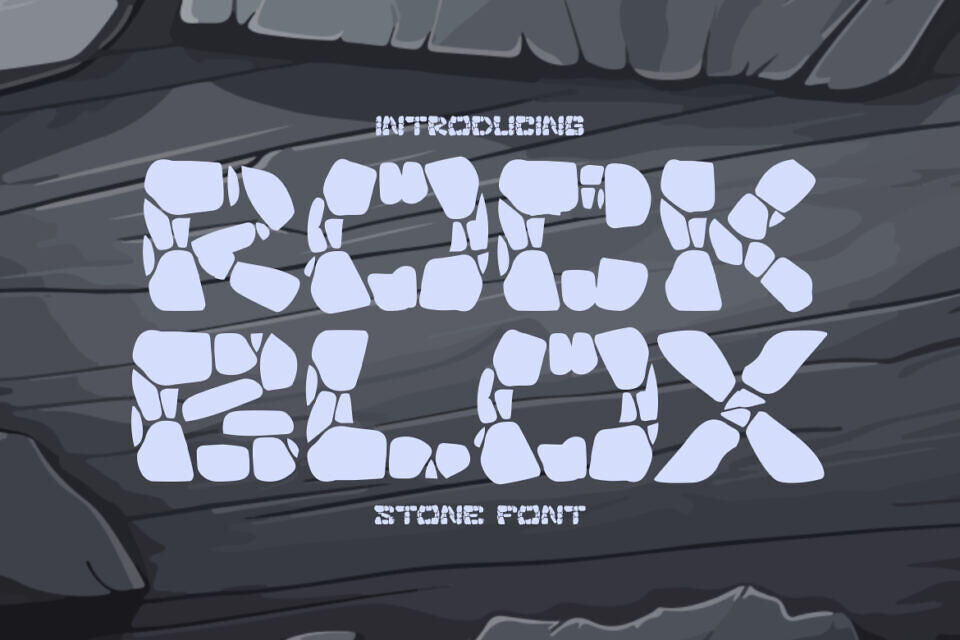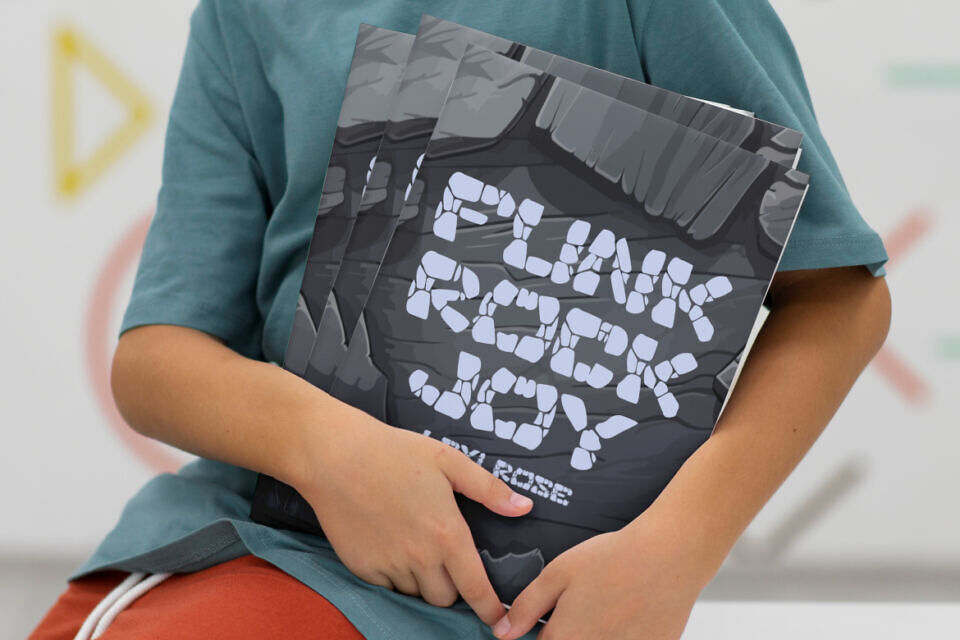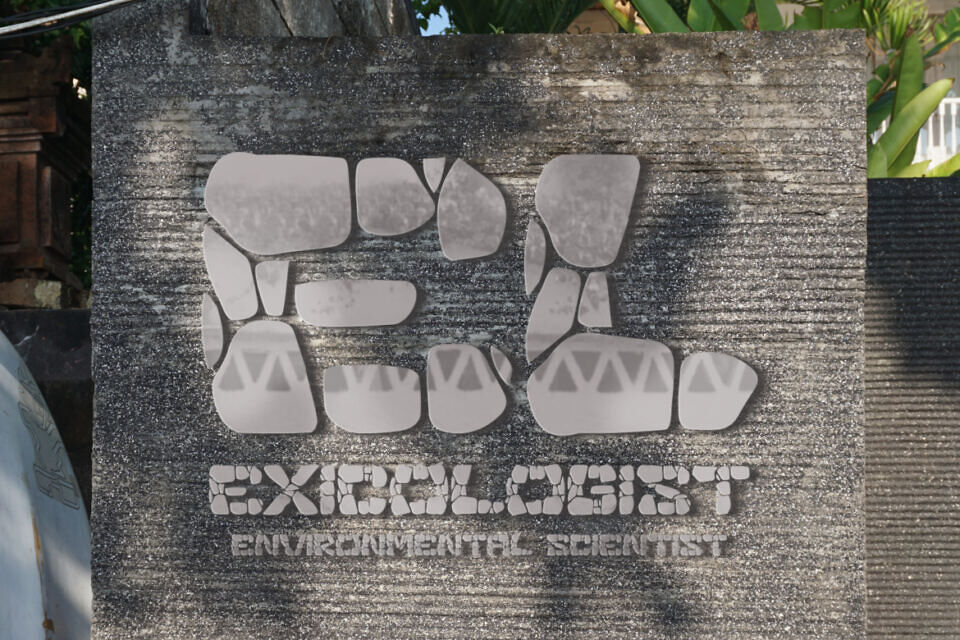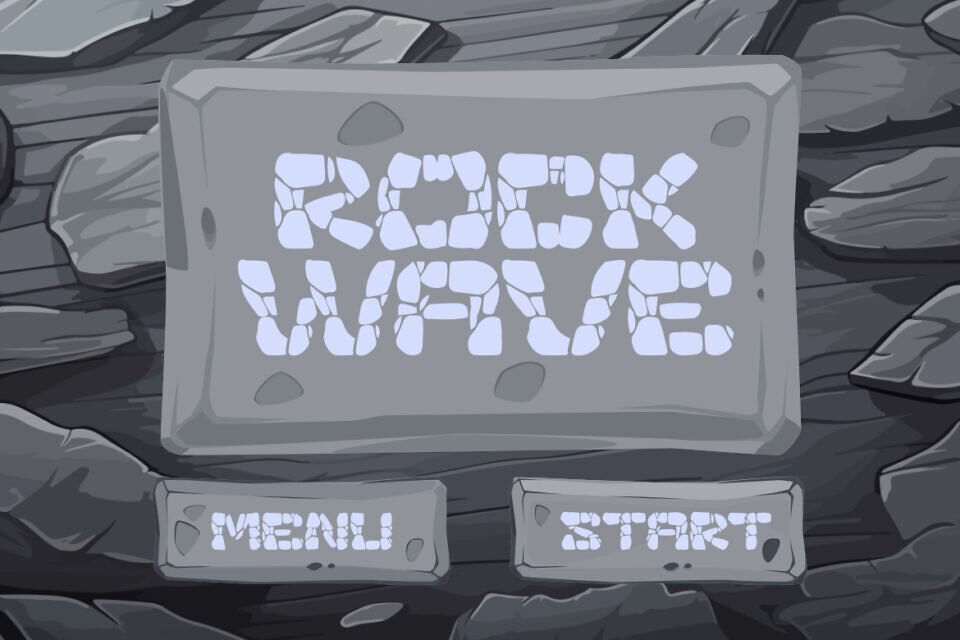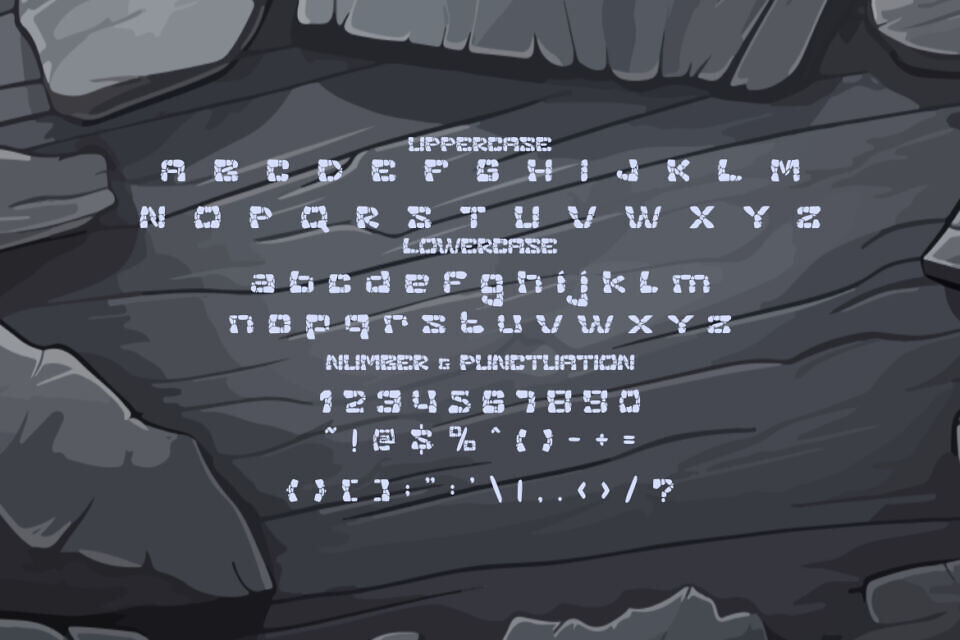
Rock Blox Font
Rock Blox Font has a handmade feel, inspired by rough rock formations. Its irregular, block-like letters create a geometric rhythm, with thick and uneven shapes giving it a natural, heavy look.
This font is perfect for adventurous themes, working well for logos, posters, and titles, and bringing an outdoor feel to designs. Its unique, broken-stone look makes it ideal for entertainment, education, and adventure branding, while remaining readable in large compositions.